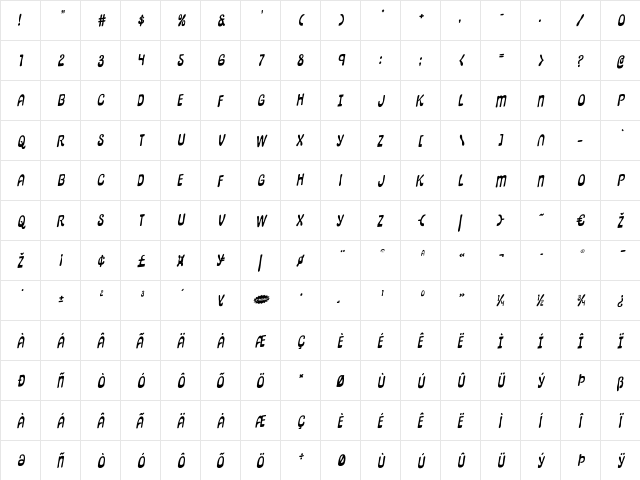
Pepperland Rotalic Italic Font Preview
Pepperland Rotalic Italic
Pepperland Rotalic Italic Font Details
Design Context for Pepperland Rotalic Typeface
Pepperland Rotalic offers clean, dependable letterforms without strong stylistic allegiance, making it a practical choice for designers who need flexibility. The slanted form adds forward momentum and visual energy.